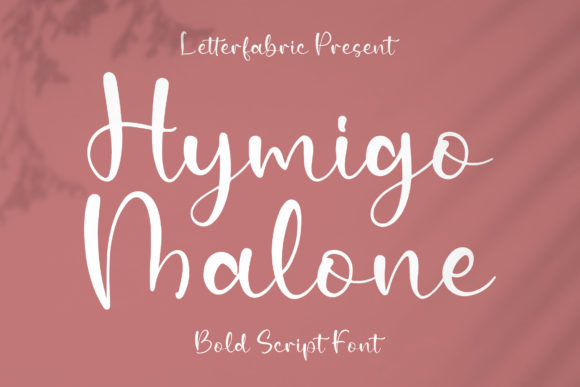
Introducing Hymigo Malone, the script font that captivates with its inherent charm and grace. Its flowing strokes dance across your designs, adding a touch of sophistication that speaks to your audience's hearts. Hymigo Malone isn't just a font; it's an extension of your creativity, a brush that paints your ideas with elegance. Dive into a world of possibilities and transform your creations into stunning works of art.
Hymigo Malone isn't just aesthetically pleasing; it's also incredibly versatile. Whether you're crafting an identity card, a heartfelt letter, or a captivating social media post, Hymigo Malone adapts seamlessly, enhancing your message with a touch of timeless beauty. It breathes life into your words, making them resonate with your audience on a deeper level.
With Hymigo Malone, you unlock a font that speaks to the soul. It's the perfect choice for designers, artists, and creatives who seek to leave a lasting impression. Experience the magic of Hymigo Malone and elevate your designs to new heights of artistry and elegance.